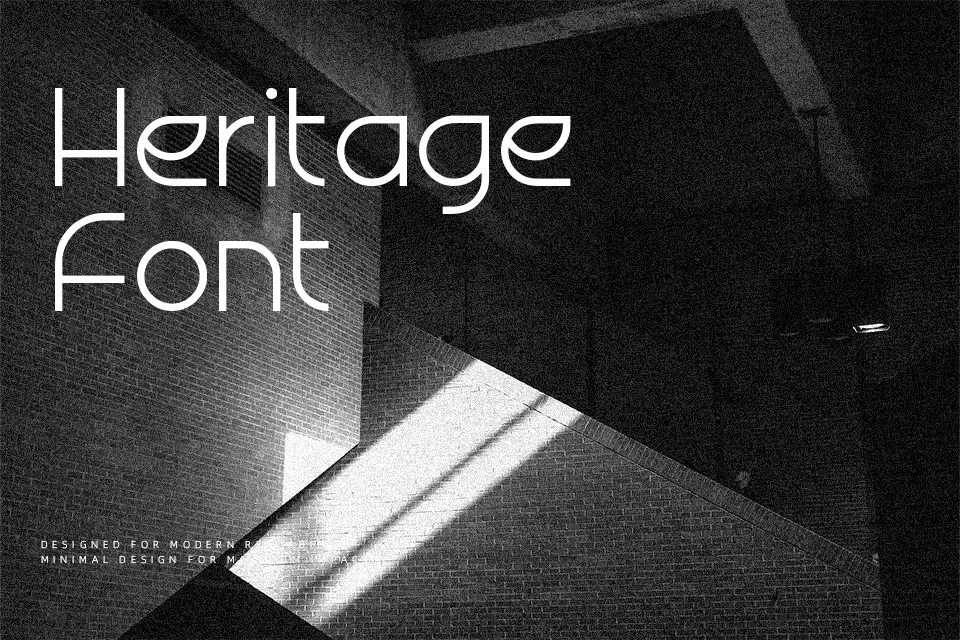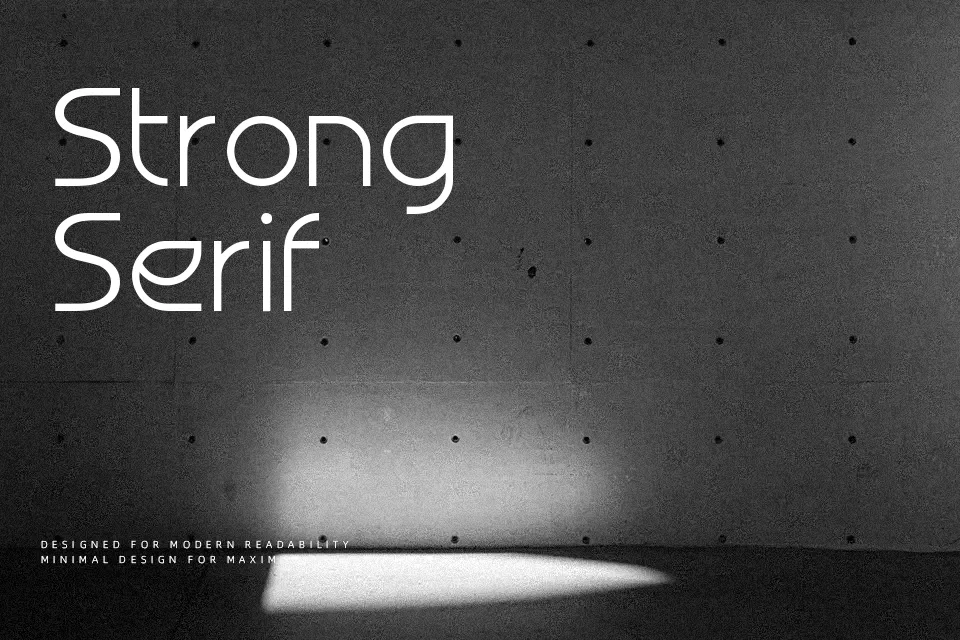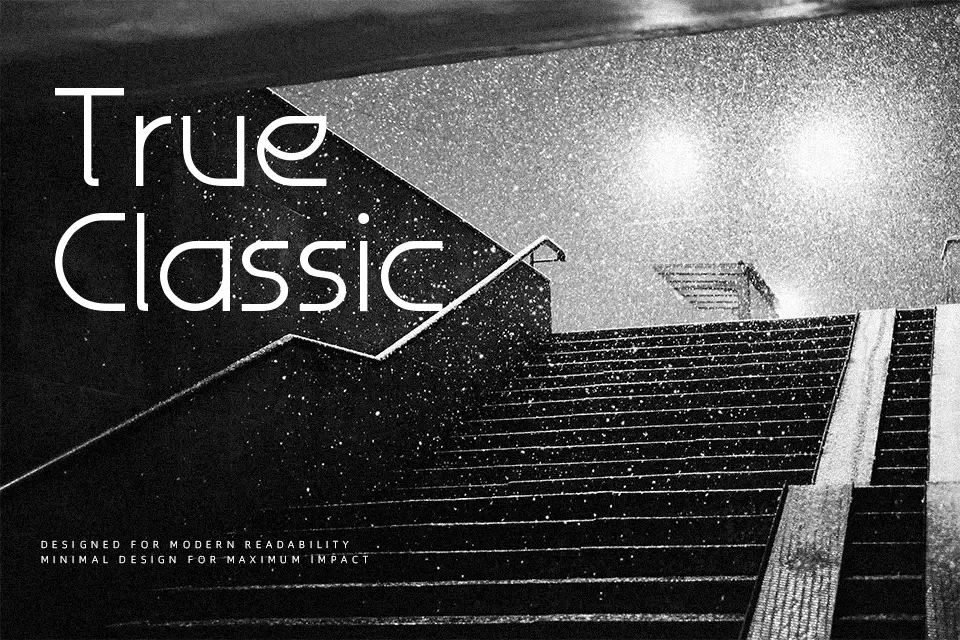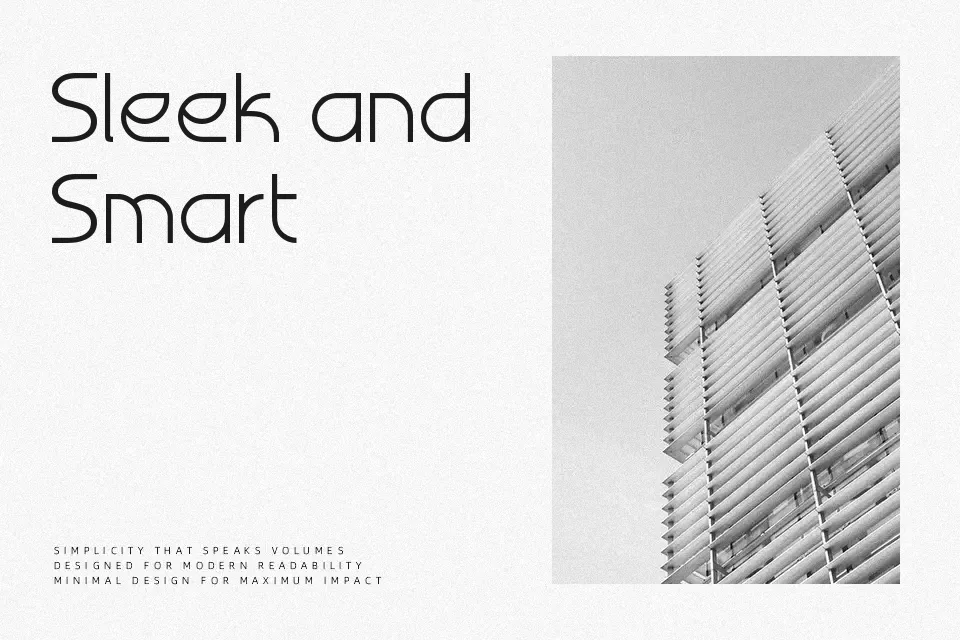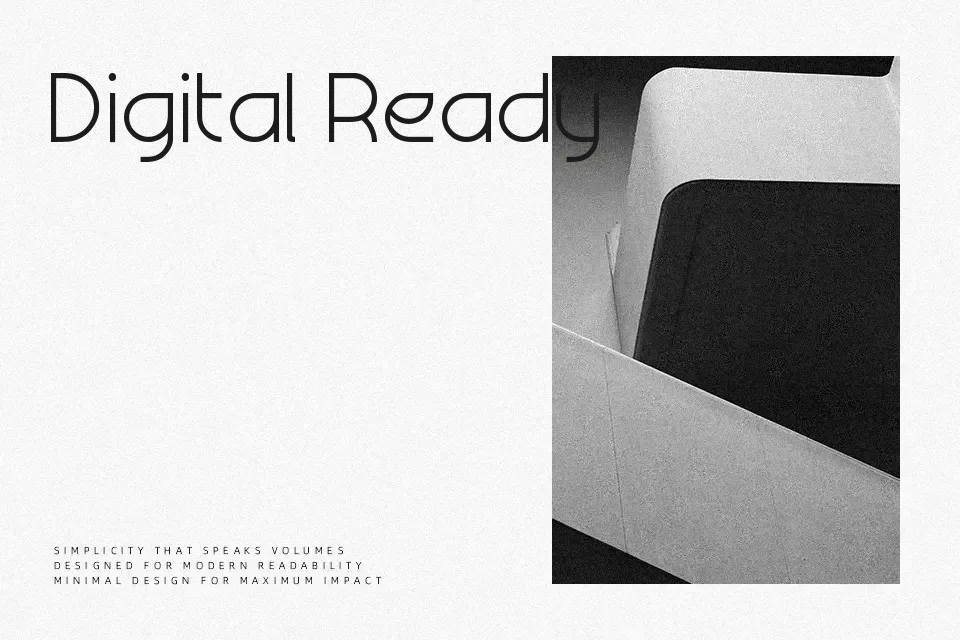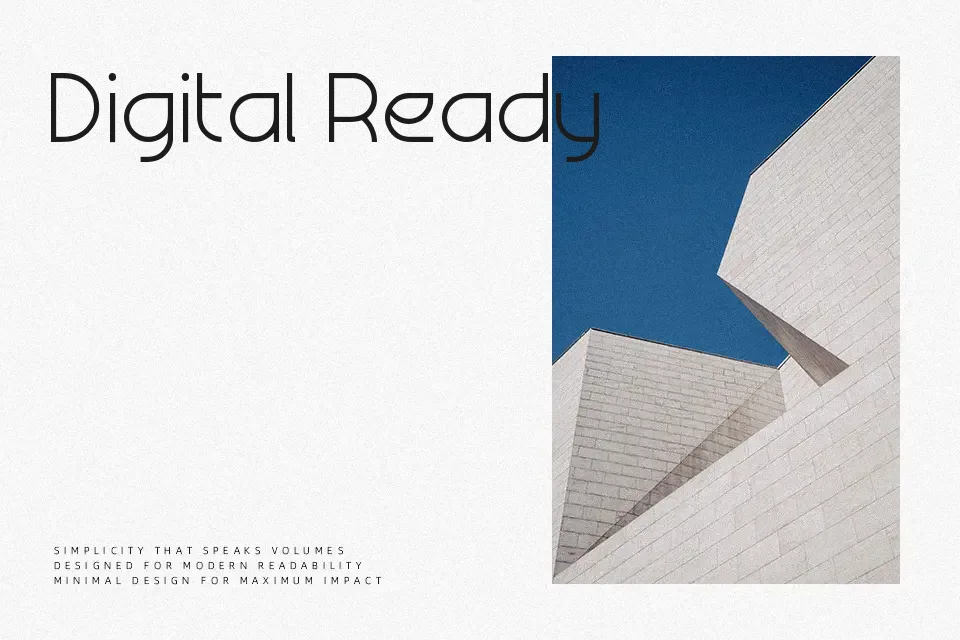
C7nazara Font
Designed by 7NTypes
C7nazara combines straight, fine strokes with subtle curves, giving it a lean geometric skeleton that feels both technical and slightly decorative. The letters are narrow with generous inner space, so it reads crisply at medium to large sizes but can look fragile if pushed too small. Visually it leans toward a modern display sans serif, useful for tech logos, UI headlines, sci‑fi book covers, and clean title cards where you want structure without heaviness. I would avoid it for dense paragraphs or serious corporate reports, as the character shapes are a bit too stylized and the light weight can reduce legibility in long text.
tech or startup logos and wordmarks
minimalist posters and cover titles
UI or app headlines with a futuristic tone
long body paragraphs or small captions
formal legal or corporate documents
print uses that require very heavy weights
Perfect for headline, logo, and poster, with a bold and display style.